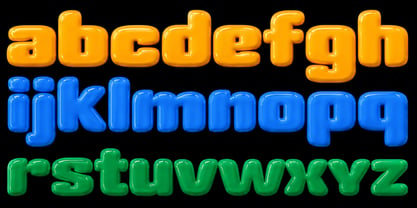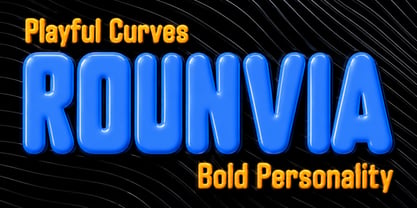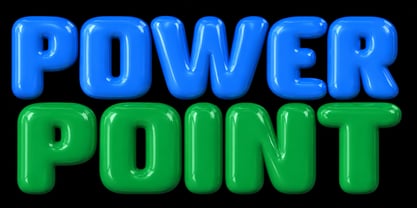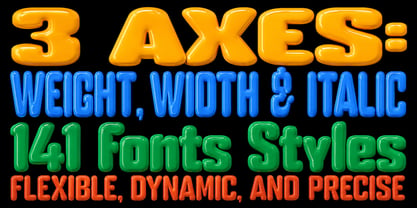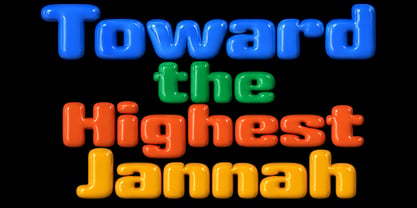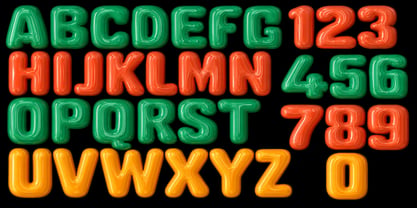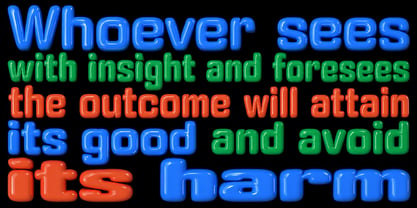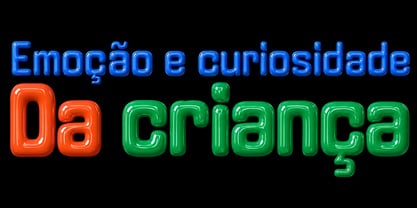
Rounvia
The Rounvia Font Family was designed by Muhammad Ansari and published by Kaidosan. Rounvia contains 141 styles and family package options. More about this family
Rounvia is a bold, playful, and modern rounded display typeface designed to make every design stand out. With its smooth curves, soft corners, and expressive forms, Rounvia delivers a friendly yet powerful visual personality.
Built with 3 variable axes — Weight, Width, and Italic — Rounvia offers 141 styles in one flexible font system, giving designers extensive creative control. Easily adjust the font from light to bold, narrow to wide, and upright to italic to create the perfect look for every project.
Perfect for logos, branding, posters, headlines, packaging, advertising, social media, titles, and creative display designs.
141 styles. 3 axes. Endless possibilities. Rounvia gives your typography the freedom to be bold, playful, and uniquely yours.